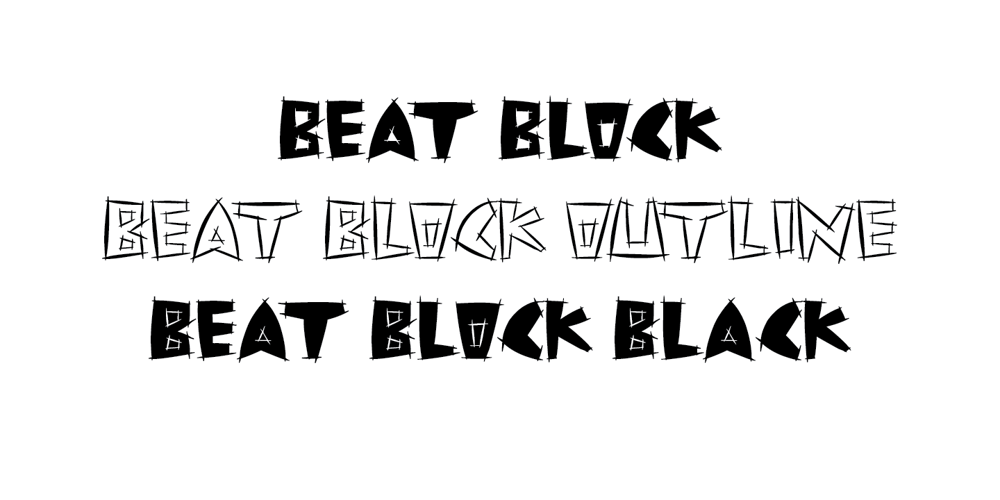
Beat Block
Beat Block font
Beat Block Font Family was designed by Wilson Thomas and published by Funk King. Beat Block contains 3 styles and family package options. The font evokes a blocky and sketchy feel.